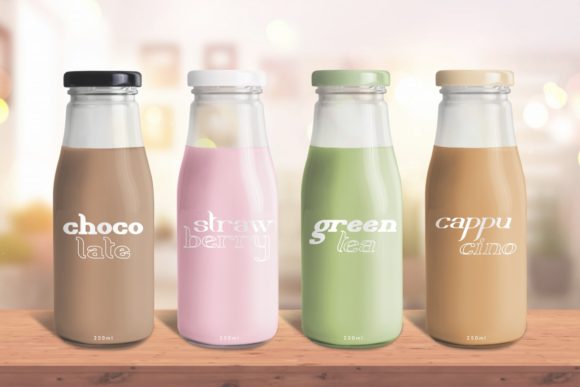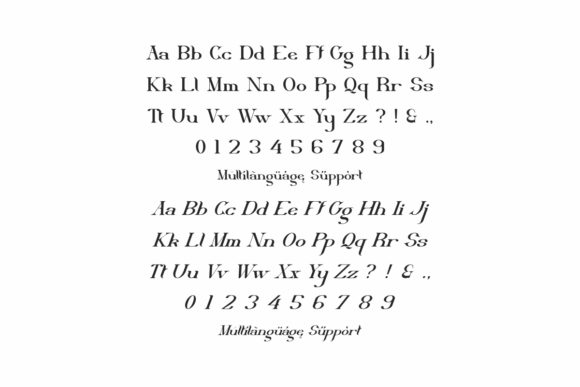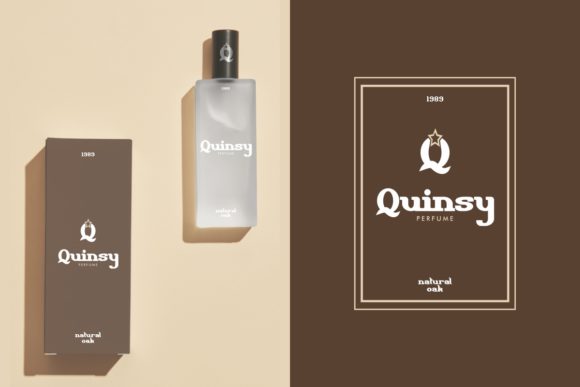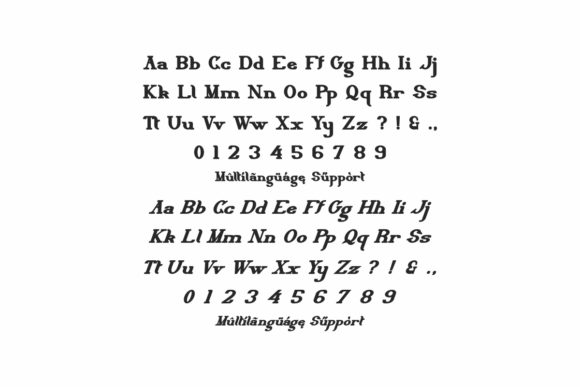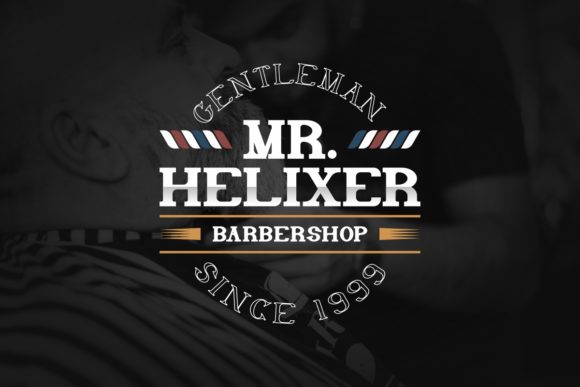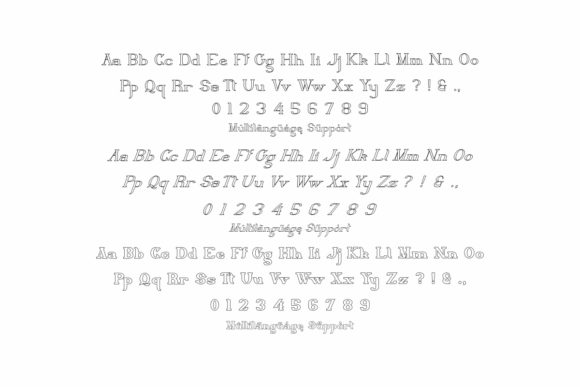
The Delith Font: A Designer’s New Best Friend
I still remember the day I stumbled upon the Delith font while working on a project for a client who needed a unique, serif font that would make their brand stand out. I had spent hours scouring the internet for the perfect font, but nothing seemed quite right. That was until I saw Delith – its elegant lines and quirky charm instantly caught my attention. I knew right then and there that I had found the one.
An Honest Review of Delith
What I Love About Delith ✨
- 💯 Unique Design: Delith is an incredibly unique serif font that stands out from the crowd. Its elegant lines and quirky charm make it perfect for a wide range of design projects.
- ✅ High Versatility: Whether you’re working on a logo, a heading, or a paragraph of text, Delith adapts beautifully to different contexts.
- 🎨 Artistic Flair: The font’s artistic flair is perfect for designers who want to add a touch of personality to their work.
- 📚 Readable: Despite its unique design, Delith remains highly readable, even at smaller font sizes.
- ⚠️ Limited Use in Body Text: While Delith is highly readable, its unique design may not be suitable for long blocks of body text. It’s best used for headings, titles, or short paragraphs.
- 🤔 Requires Attention to Kerning: As with any font, kerning is crucial to ensure that Delith looks its best. Be sure to adjust the kerning to suit your design.
The Story Behind Delith
Delith was designed by a team of typographers who wanted to create a unique, elegant serif font that would stand out in a crowded design landscape. Inspired by classic typography and modern design trends, Delith is the result of careful craftsmanship and attention to detail.
| Font Name | Delith Font |
| Author | NihStudio |
Q: What is Delith font?
A: Delith is a unique serif font designed for creative professionals who want to add a touch of elegance to their designs.
Q: Is Delith suitable for body text?
A: While Delith is highly readable, it’s best used for headings, titles, or short paragraphs. For long blocks of body text, a more traditional serif font may be more suitable.
Q: Does Delith support OpenType features?
A: Yes, Delith supports OpenType features, including stylistic alternates and glyphs, which can be accessed through your design software.